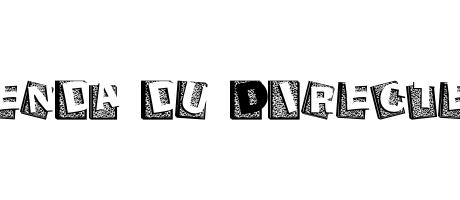
Agenda
By Illegal Industriez Design
Agenda du Directeur is a playful, hand-drawn font. Its letters are blocky and slightly skewed, giving a whimsical, almost scrapbook-like effect. The texture is reminiscent of a rough, slightly distressed print. Each letter is individually styled, enhancing the casual and informal feel. It conveys a sense of energy and fun.